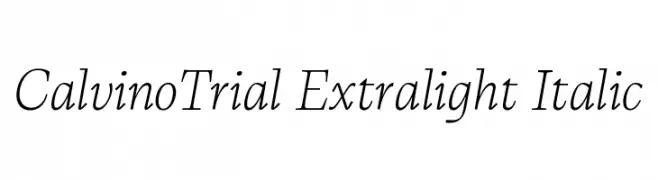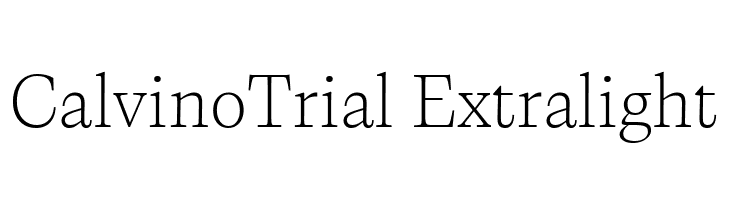
A refined serif font with thin strokes and elegant design.
An elegant, extra-light italic serif font with refined curves and classic charm.
A classic italic serif font with elegant, flowing curves.
A refined serif font with elegant, thin strokes and classic proportions.
A refined, light, and italic font with elegant curves and a sophisticated style.
A classic serif font with a modern twist, offering elegance and sophistication.
A semi-bold serif font with a classic yet modern appeal.
A semi-bold italic font with elegant curves and a refined slant.
A refined serif font with thin, elegant strokes and a modern aesthetic.
A thin, italicized typeface with a modern and elegant style.